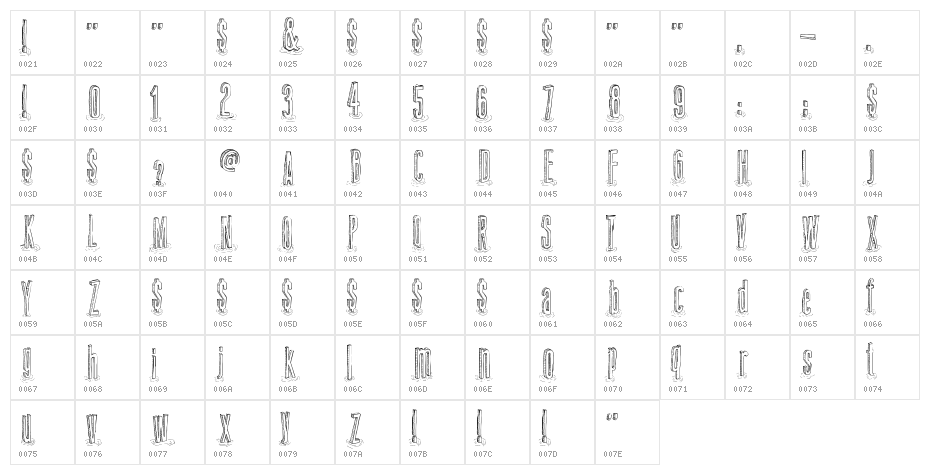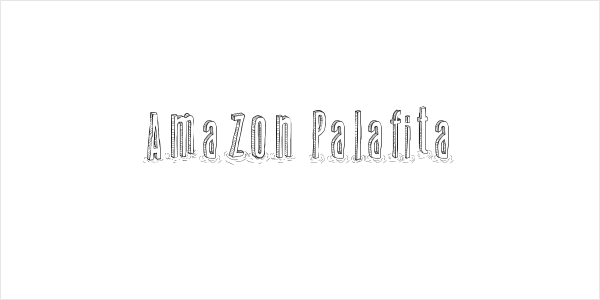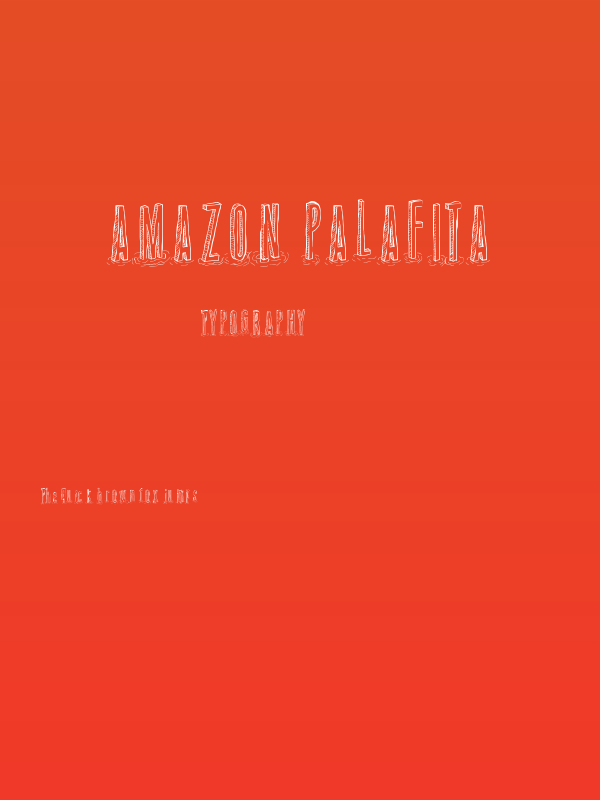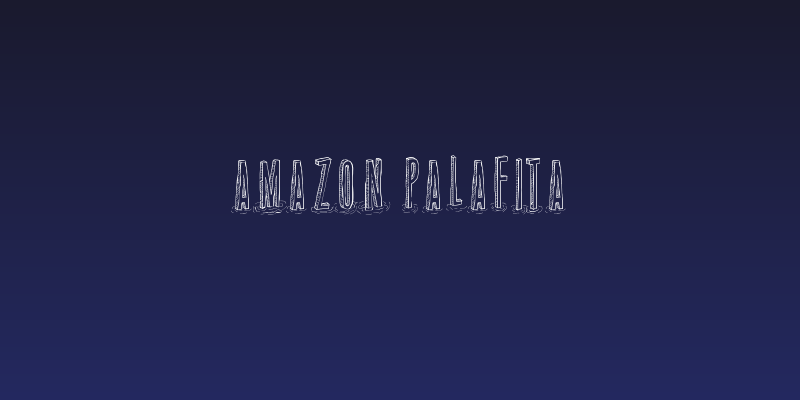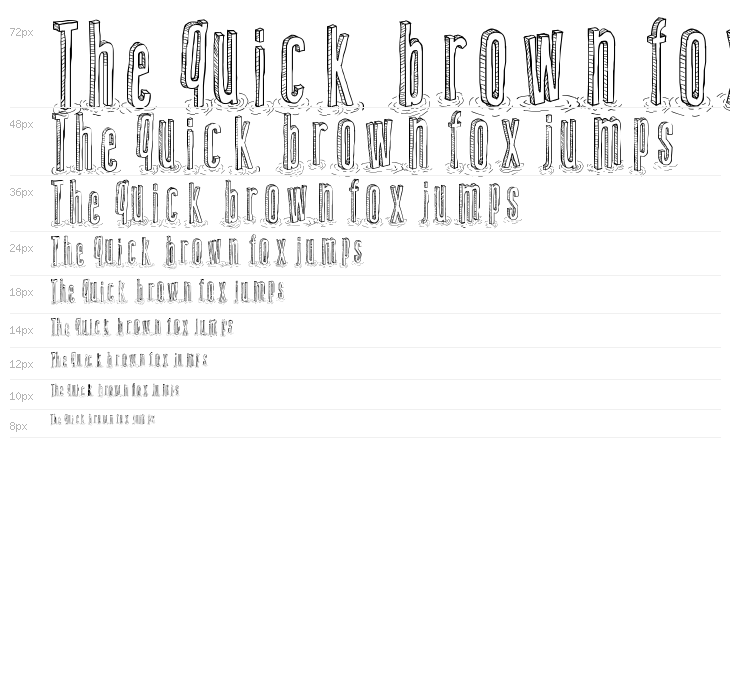
Amazon Palafita Font
Amazon Palafita Description
This font features a unique and artistic design with a hand-drawn, sketch-like appearance. Each character is outlined with a textured, irregular stroke, giving it a playful and whimsical feel. The letters are tall and narrow, with a slight slant, adding to their dynamic and lively character. The font includes both uppercase and lowercase letters, numbers, and a variety of special characters, all maintaining the same distinctive style. The overall design is reminiscent of a hand-drawn illustration, making it ideal for creative and informal projects.
| Overall Style | Whimsical, Artistic |
| Use Case | Headlines, Artistic projects, Informal designs |
| Proposed Projects | Ideal for children's books, creative posters, artistic branding, and informal invitations. |